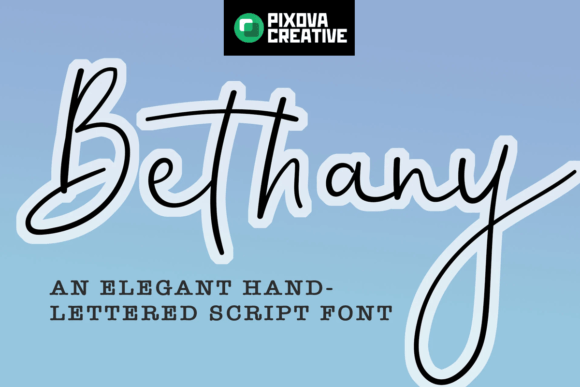
The Perfect Script: Introducing Bethany Font
You know that moment when you’re brainstorming ideas for a special occasion and you want to create something truly unique? Maybe it’s a wedding invitation, a birthday card, or a holiday greeting. Whatever the occasion, the right font can make all the difference. That’s where Bethany Font comes in – a beautiful hand-lettered font that exudes warmth and elegance.
With its smooth, flowing letters and friendly style, Bethany Font is perfect for adding a personal touch to any project. Whether you’re a seasoned designer or a crafty DIY enthusiast, this font is sure to impress. Its warm, handwritten look feels both casual and sophisticated, making it a valuable addition to any design toolkit.
- Unique Characteristics: Bethany Font features a unique blend of modern and vintage elements, with clean lines, elegant curves, and subtle flair, making it an ideal choice for designers seeking a distinctive look.
Bethany Font Review
As a designer, I’ve had the chance to work with various fonts, and Bethany is one that caught my attention. Here’s my honest take on this font.
- Beautiful calligraphy style that adds a touch of elegance to any text.
- Clear and readable even at smaller font sizes.
- A wide range of language support, making it suitable for multi-lingual projects.
- Works well for both display and body text.
- Not ideal for digital use, as it can look pixelated on screens.
- Lack of bold and italic styles, which can limit its versatility.
- Some characters may not render correctly in certain fonts.
Bethany is a beautiful font that shines in print projects. While it has its limitations, it’s perfect for designers who want to add a touch of elegance and sophistication to their work. However, for digital projects, I would recommend considering other font options.
Bethany Font is perfect for:
- Business cards and branding materials
- Event promotions and advertising
- Personalized gifts and stationery
Tips for Getting the Most Out of Bethany Font
Experiment with different font sizes, colors, and styles to create unique and eye-catching designs. Use Bethany Font in combination with other fonts to add depth and visual interest. Don’t be afraid to try new things and push the boundaries of what’s possible with this beautiful script font.
Alternatives to Bethany Font
Lato is a sans-serif font designed by Łukasz Dziedzic. It’s a modern and clean font suitable for various design projects, including logos, headings, and body text. Lato is often used for its readability and versatility.
Comparison to Bethany Font: Lato is more geometric and modern compared to Bethany Font, which has a softer and more rounded feel. Lato is a better choice when you need a clean and minimalist design.